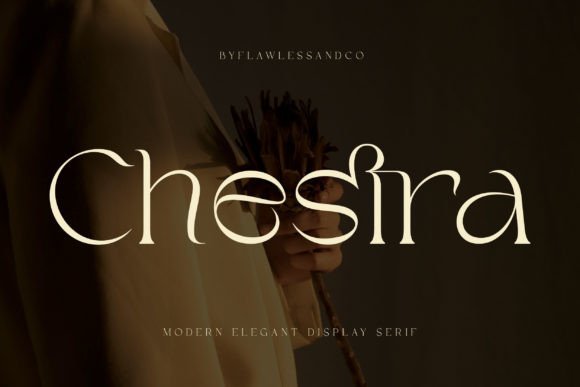
Journey into the world of typography with Chestra Font, a modern serif typeface crafted by Flawless And Co. Experience the allure of artfully connected letters, designed to captivate and inspire. Chestra Font is not just a font; it's an artistic expression that elevates your designs, adding a touch of elegance and sophistication.
Immerse yourself in the beauty of Chestra Font, a serif masterpiece that dances across your screen. Its carefully crafted curves and flourishes create an enchanting visual symphony, transforming ordinary words into captivating works of art. Experience the joy of seamless connectivity, as letters intertwine gracefully, evoking a sense of harmony and cohesion.
Unlock your creativity with Chestra Font, the ultimate choice for branding materials that leave a lasting impression. Create t-shirts that speak volumes, logos that command attention, and posters that ignite imaginations. Elevate your photography with Chestra Font, adding a touch of timeless elegance to your cherished memories.
Discover the versatility of Chestra Font, a font that adapts effortlessly to a myriad of design projects. Whether you're crafting stunning wedding invitations, heartfelt quotes, or eye-catching posters, Chestra Font rises to the occasion, adding an air of refinement and grace. Unleash your inner artist and explore endless creative possibilities with Chestra Font.
Embrace the power of Chestra Font, the font that transforms your designs into masterpieces. Let its beauty captivate your audience, leaving them spellbound by your creations. Experience the joy of seamless connectivity, elegant curves, and boundless creativity. Download Chestra Font today and embark on a typographic journey like no other.